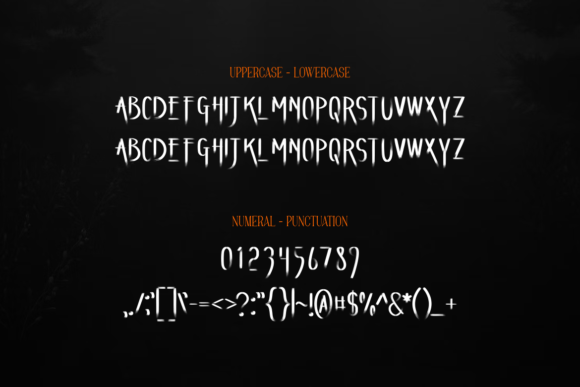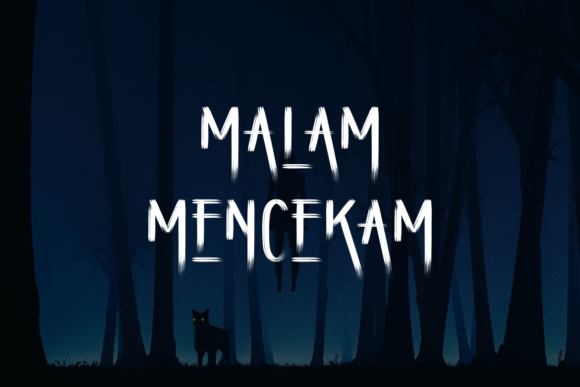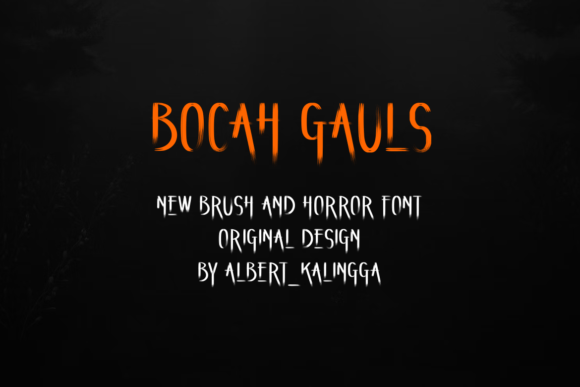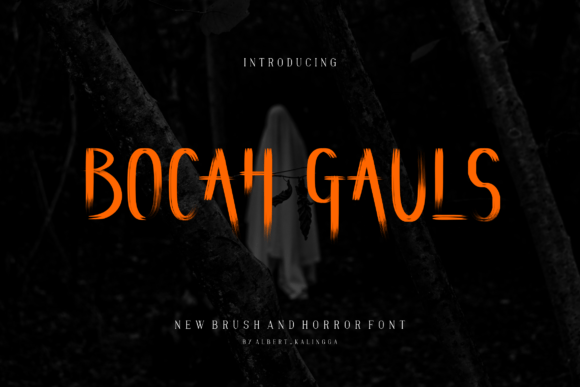
Introduction to Bocah Gauls Font
Unleash the spine-tingling vibes with “Bocah Gauls,” a brush horror font that brings a touch of macabre to your designs.
The gritty strokes and ominous aesthetic of Bocah Gauls create an atmosphere of suspense and horror, making it perfect for haunted house flyers, Halloween posters, or any project where you want to infuse an element of fear Embrace the dark side of design with this uniquely chilling typeface.
Key Features of Bocah Gauls Font